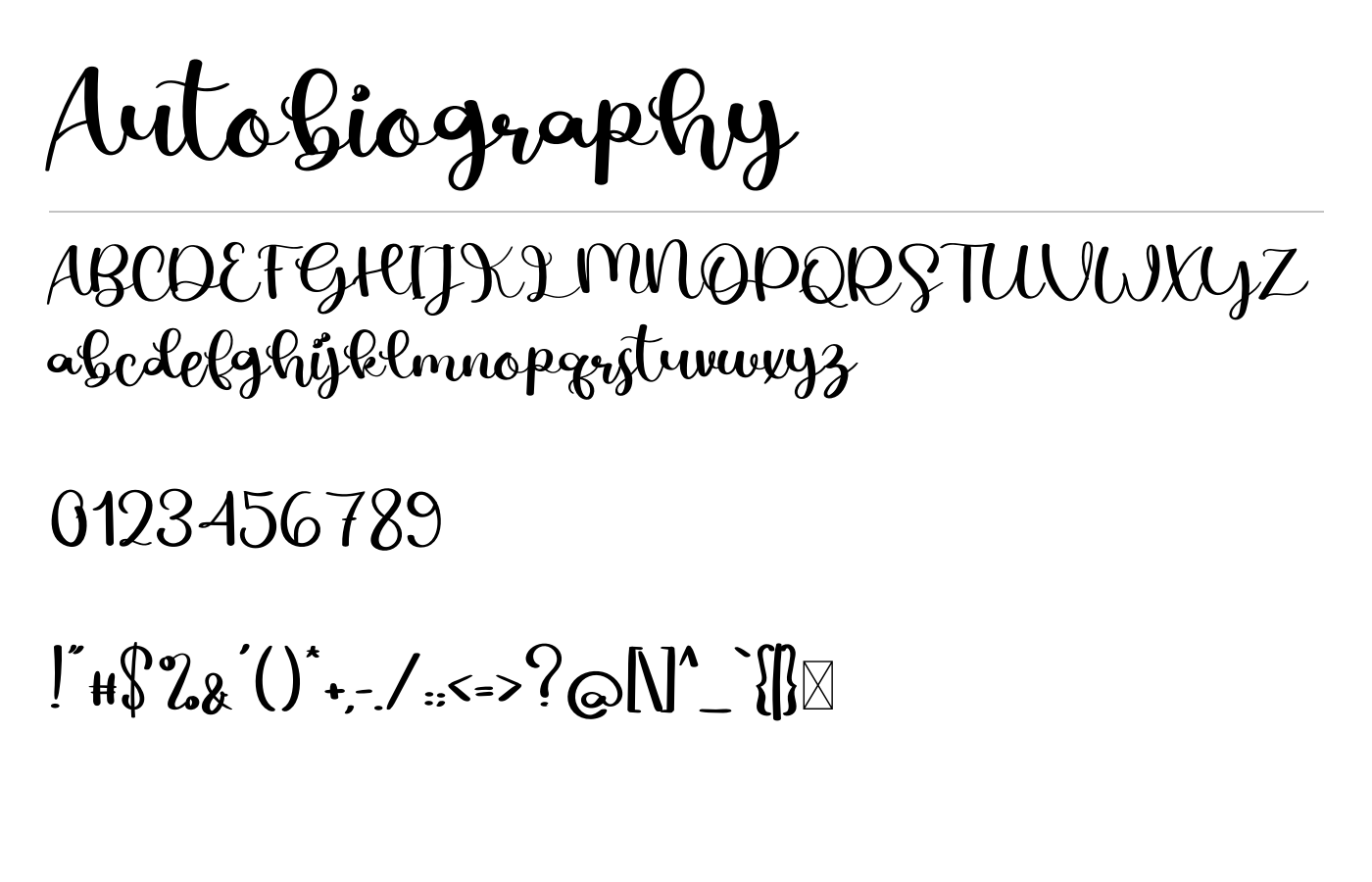
Autobiography Font is a charming script typeface featuring smooth, flowing strokes with a playful yet elegant personality. Its medium weight and casual, handwritten style make it perfect for adding a personal touch to invitations, branding, and social media graphics. The font balances legibility with decorative flair, ideal for creative projects that seek warmth and individuality.
Autobiography Font
About Autobiography Font